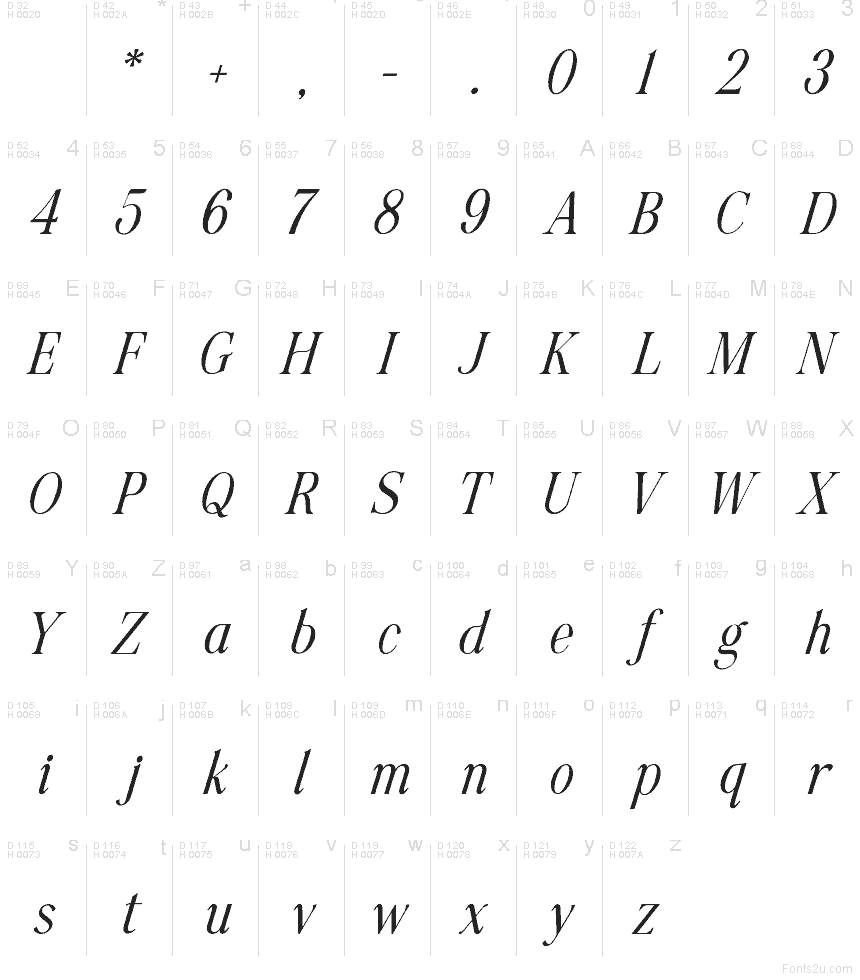
Reveline Detania Demo Italic
Reveline Detania Italic font by Dedi Setiyawan is a free serif typeface that brings a quiet, editorial elegance to anything it touches. The letters sweep forward with a graceful slant, like fast, confident pen strokes, while the fine hairlines and tapered curves keep it feeling refined rather than fussy. Sitting within the Reveline Detania family, this italic style adds a sense of motion and luxury that feels at home on creamy paper or a minimal digital layout.
Using Reveline Detania Italic, your text immediately feels suited to wedding invitations, perfume or fashion branding, magazine mastheads, boutique menus, book covers, and romantic quote graphics. The spacing feels naturally airy, which helps it read smoothly at larger sizes where every curve can breathe. Pair this free font with a clean geometric sans for supporting copy, and let Reveline Detania Italic take center stage in headlines, names, and short phrases.